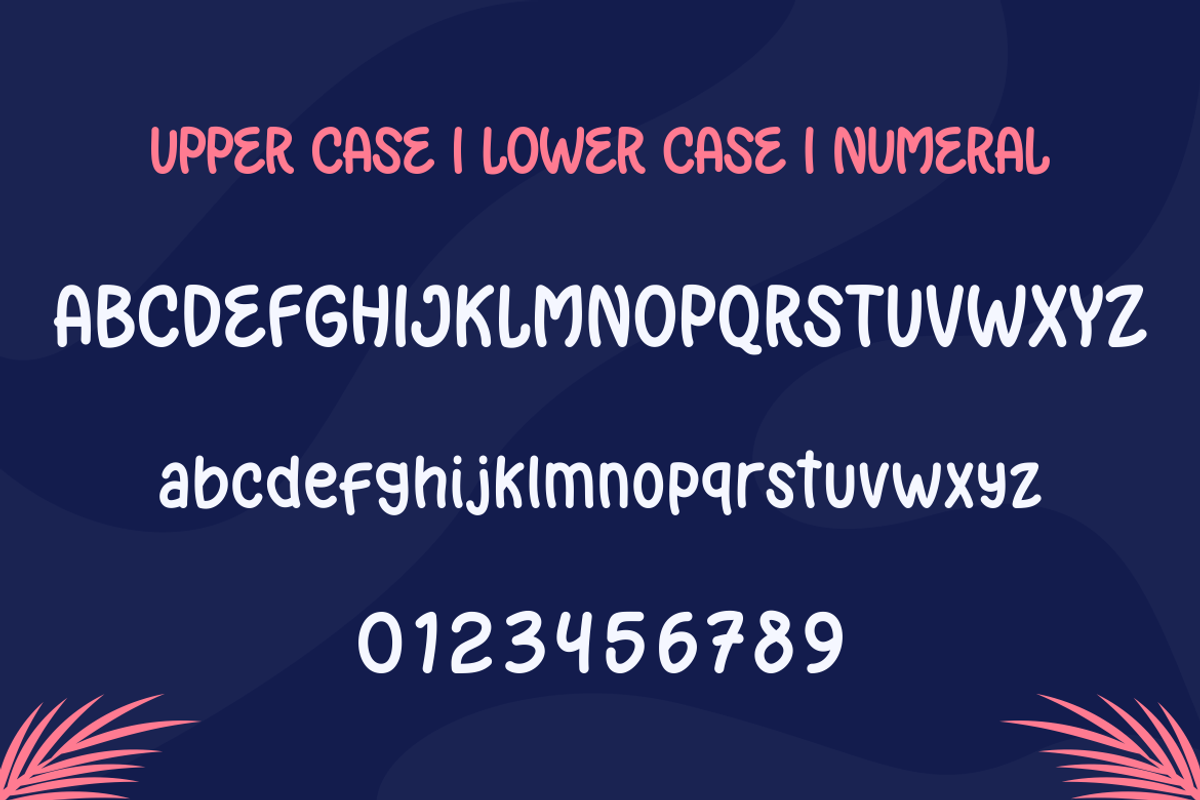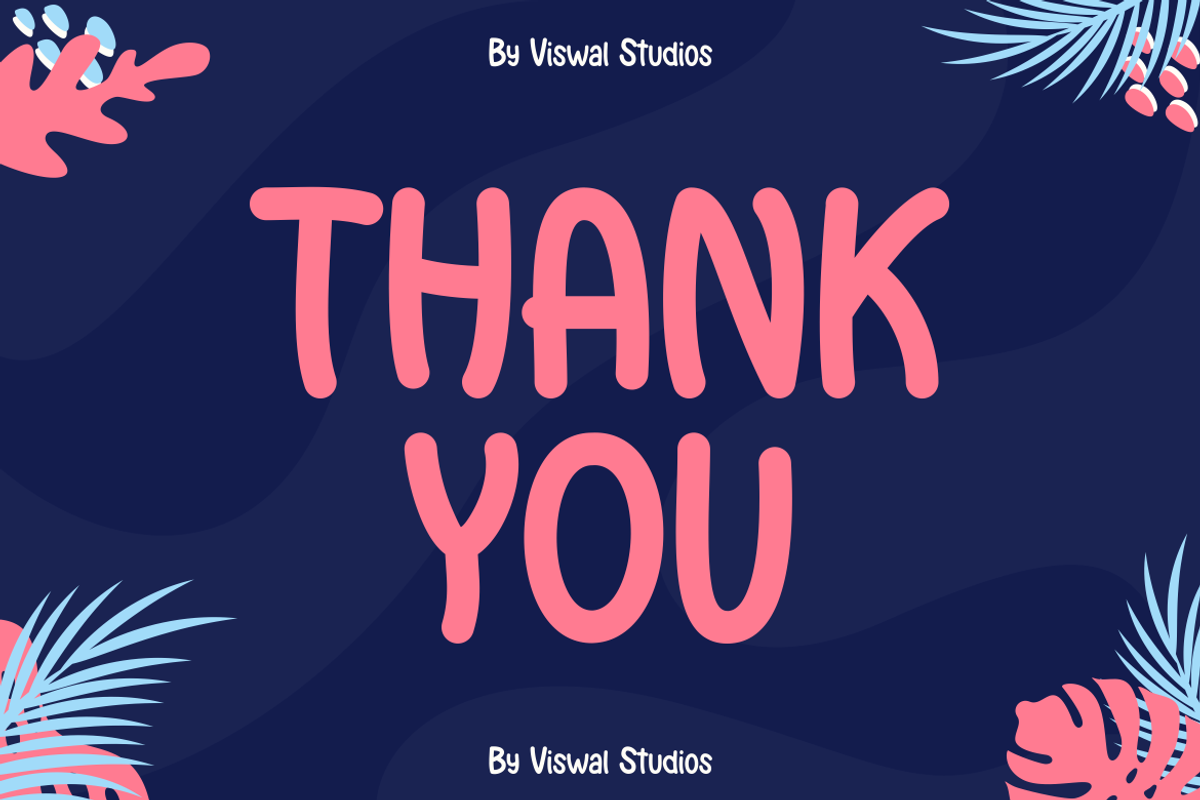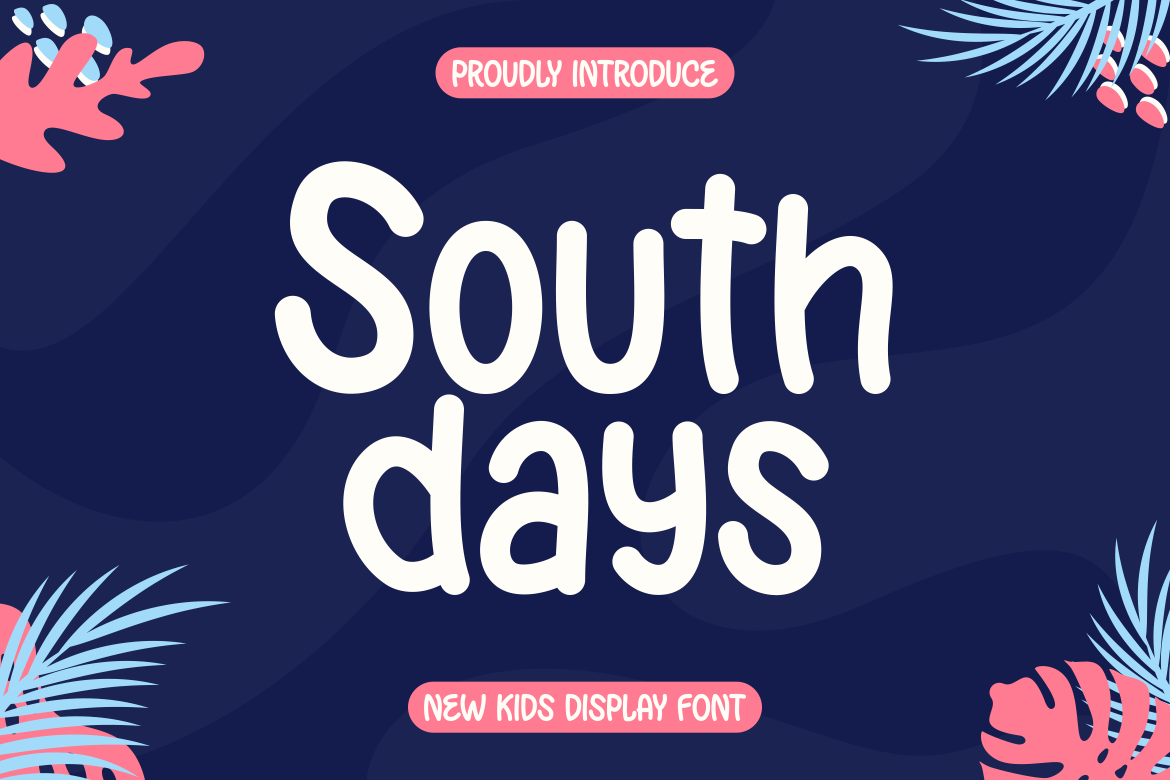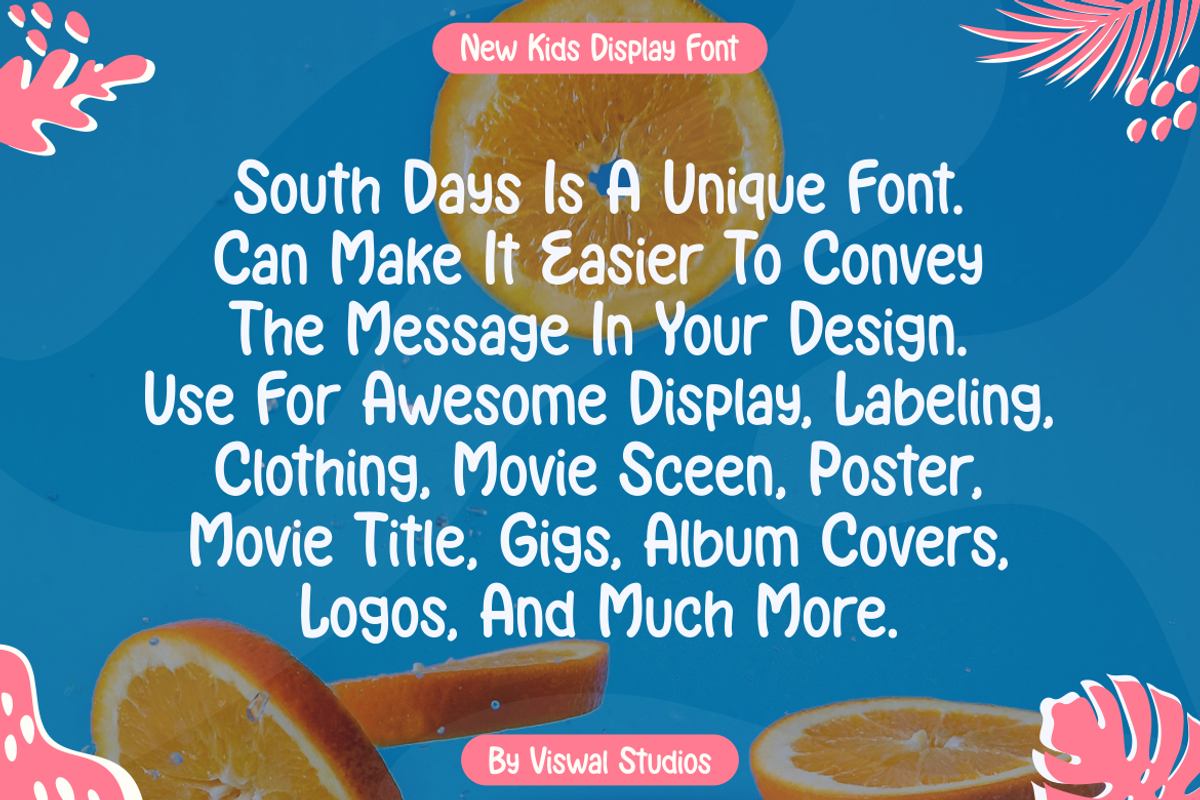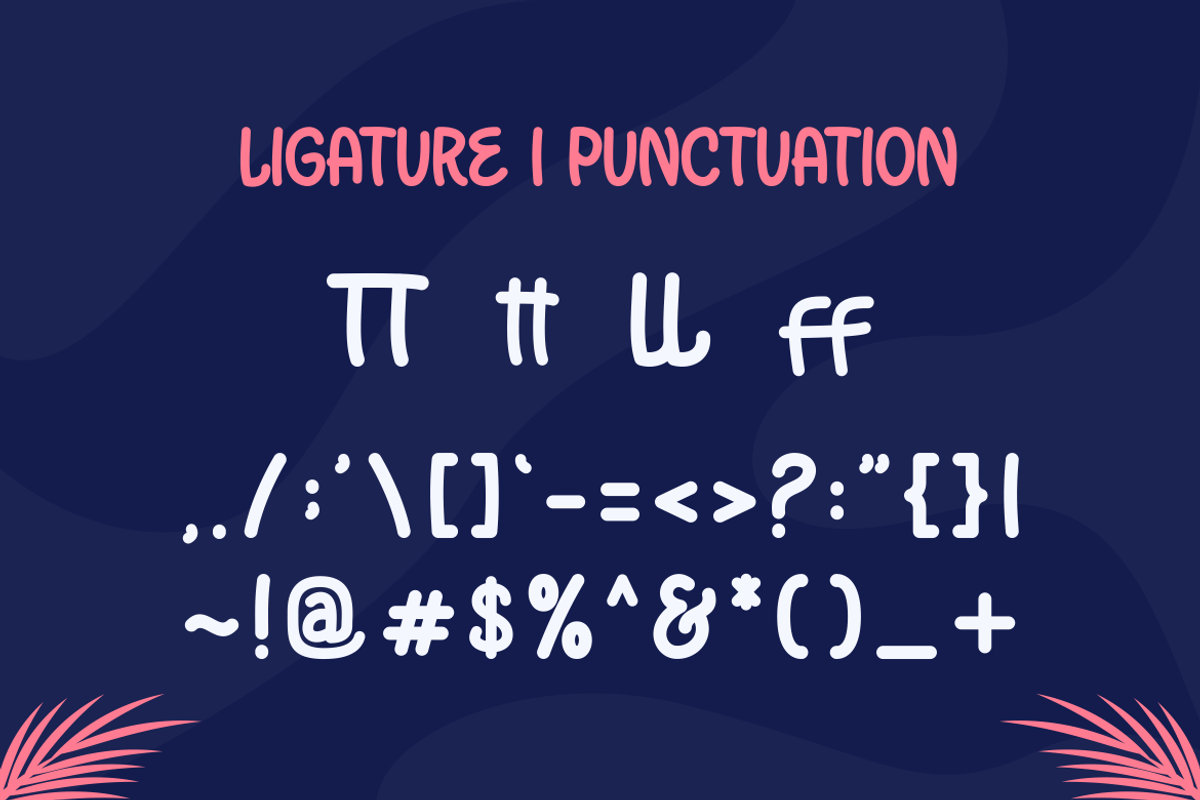
South Days - Playful Font
Presenting South Days Is A Comic Playful Font.
Can Make It Easier To Convey The Message In Your Design. Font Is Suitable For Logo, Labels, Badge, Branding, Magazine, Poster, Title, Gigs, Covers And Etc. Our Fonts Have Uppercase & Lowercase, Numeral & Punctuation, And Opentype Features. For Amazing Designs You Can Mix With Other Fonts As A Complement.